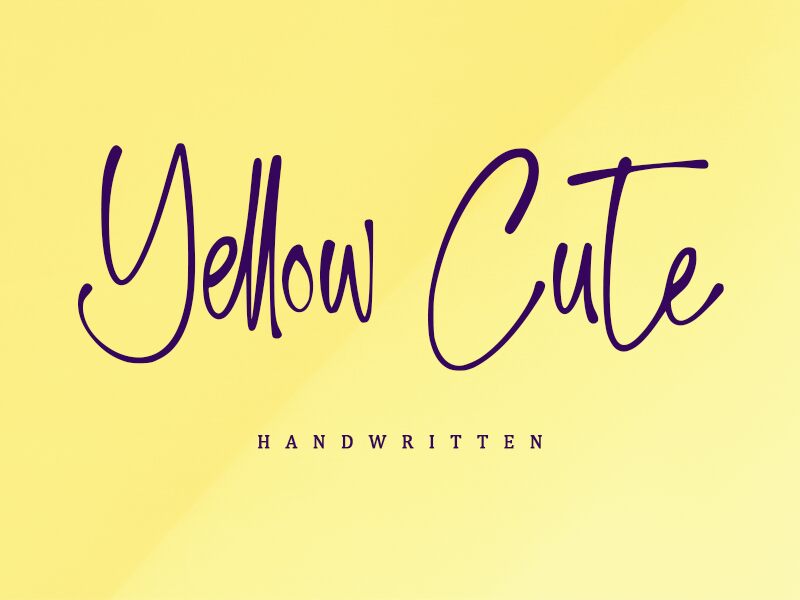
Yellow Cute
Yellow Cute font by Alif Ryan Zulfikar is a light, condensed handwritten font with a friendly appearance. The casual look communicates a modern aesthetic and an approachable feel that inspires an energetic mood in the reader. Letters have slight turns to them as they form the text, both uppercase and lowercase characters.
Use this free handwritten font for party invitations, postcards, notebooks’ cover designs, greeting cards, ebooks titles, personal branding logos, labels layouts and more. Digital or printed projects can equally benefit from this professional typeface.